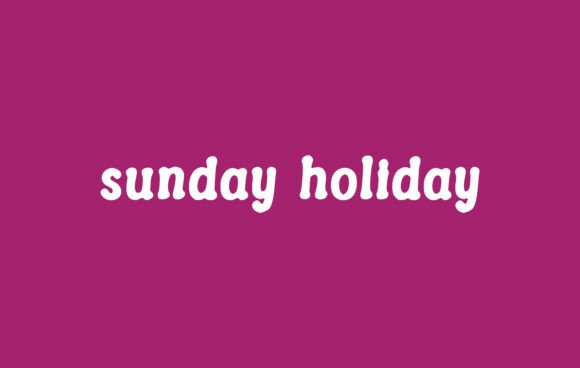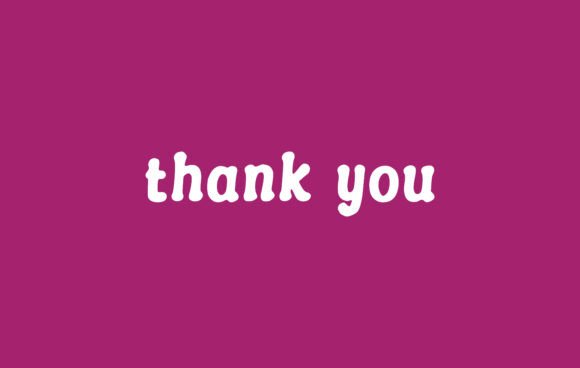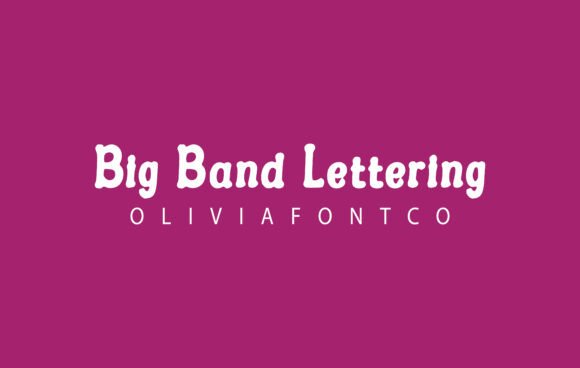
Big Band Lettering Font: A Groovy Retro Font for Your Designs
Are you looking for a font that can add a touch of nostalgia and energy to your designs? Look no further than Big Band Lettering Font, a bold and playful retro font inspired by the jazz era and vintage signage. With its groovy curves and friendly style, this font is perfect for designers and crafters who want to create eye-catching posters, music flyers, branding, and retro-themed designs.
The Inspiration Behind Big Band Lettering Font
Big Band Lettering Font is inspired by the vibrant and lively era of jazz and swing music, popularized by big bands in the 1920s to 1940s. The font’s design is influenced by the bold and colorful signage of the time, which often featured curvaceous lines, bold typography, and a playful flair. The result is a font that exudes energy, sophistication, and a touch of nostalgia.
Key Features of Big Band Lettering Font
So, what makes Big Band Lettering Font so special? Here are some of its key features:
• Bold and Playful Design: Big Band Lettering Font features bold and curvaceous lines, giving it a playful and energetic feel.
• Retro Flair: The font’s design is inspired by vintage signage and jazz era typography, making it perfect for retro-themed designs.
• Groovy Curves: The font’s curves are smooth and fluid, adding to its playful and lively feel.
• Friendly Style: Big Band Lettering Font has a friendly and approachable style, making it perfect for designs that need to connect with their audience.
Use Cases for Big Band Lettering Font
Big Band Lettering Font is a versatile font that can be used in a variety of design projects, including:
• Posters: Create eye-catching posters for concerts, festivals, or events with Big Band Lettering Font.
• Music Flyers: Add a touch of nostalgia to your music flyers with this font’s retro flair.
• Branding: Use Big Band Lettering Font to create a unique and memorable brand identity for your business or product.
• Retro-Themed Designs: Perfect for designs that require a touch of nostalgia, such as vintage-inspired advertisements, packaging, or editorial designs.
Tips for Using Big Band Lettering Font
Here are some tips for getting the most out of Big Band Lettering Font:
• Use it as a Headline Font: Big Band Lettering Font is perfect for headlines and titles, where its bold and playful design can shine.
• Pair it with a Simple Font: Pair Big Band Lettering Font with a simple font for body text to create a striking contrast.
• Experiment with Colors: Big Band Lettering Font looks great with bold and bright colors, so don’t be afraid to experiment.
Big Band Lettering Font is a unique and versatile font that can add a touch of nostalgia and energy to your designs. With its bold and playful design, groovy curves, and friendly style, it’s perfect for designers and crafters who want to create eye-catching posters, music flyers, branding, and retro-themed designs. So why not give it a try and see how it can elevate your designs?